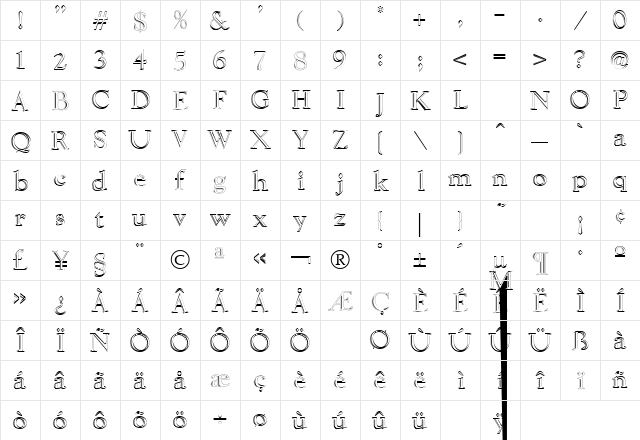
Liberty Outline Regular
Design Context for Liberty Outline Typeface
Liberty Outline brings ornamental detail and strong personality to headlines and identities, where visual impact matters more than quiet functionality.
Font Pairing: Pair with a clean neutral sans-serif for body copy to let Liberty Outline's character lead without overwhelming the composition.
Pro Tip: Use Liberty Outline exclusively at display sizes — it was designed to be seen, not read at length. Let a neutral companion handle body copy.